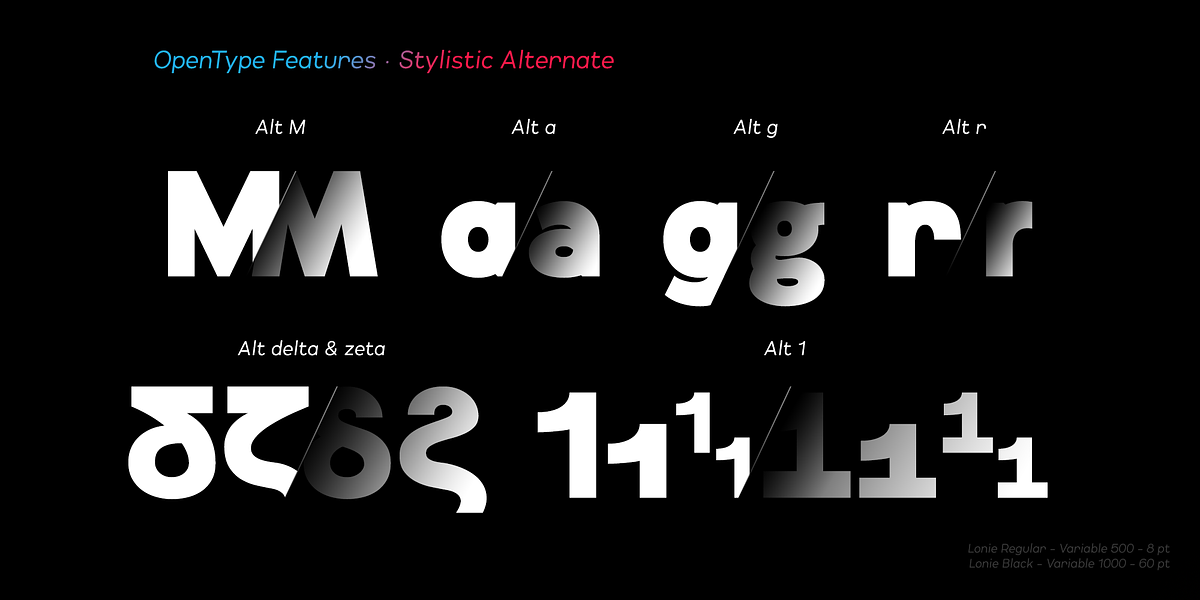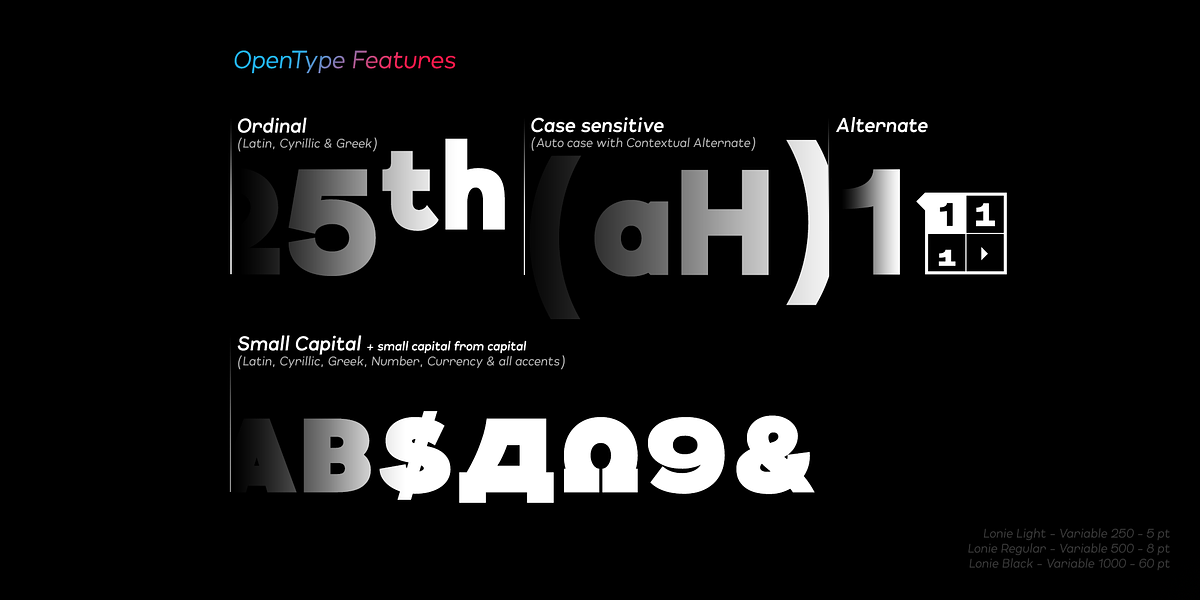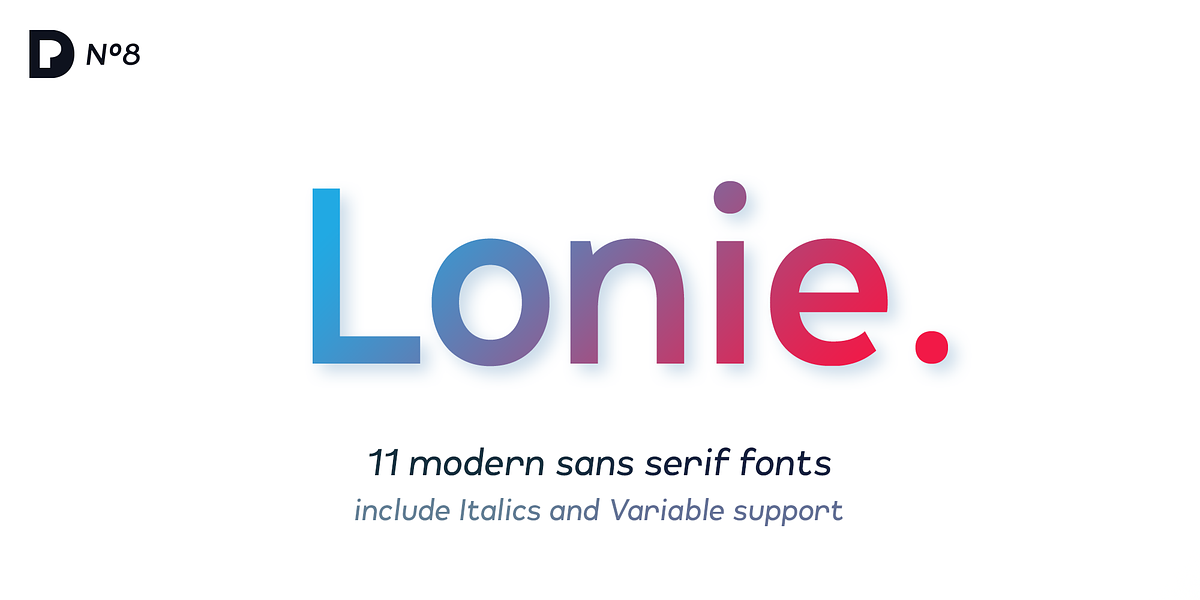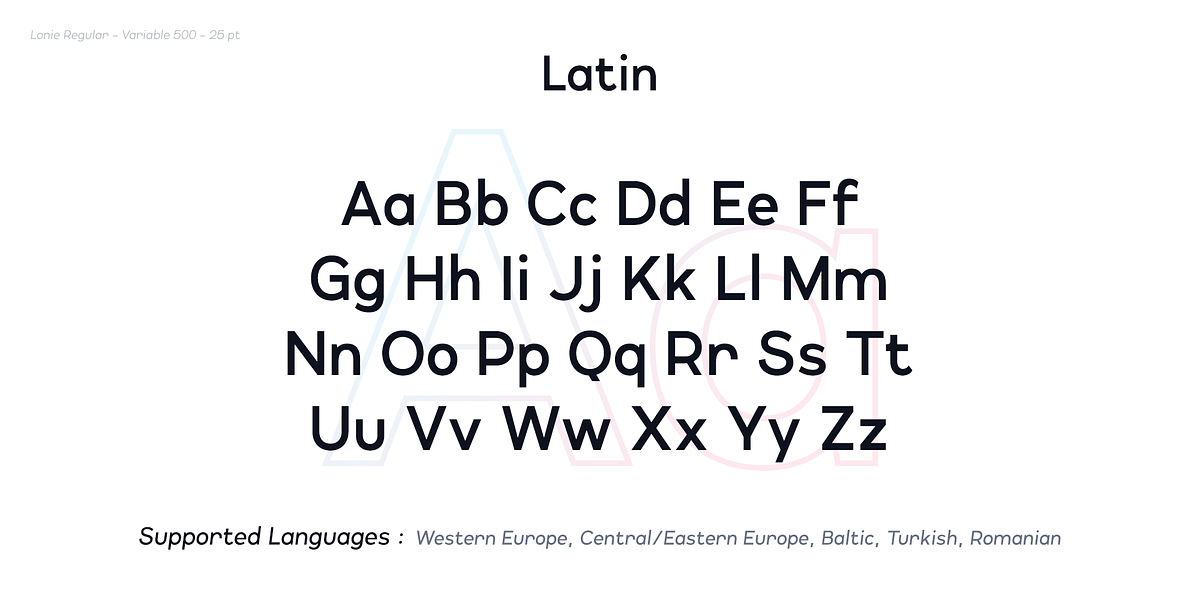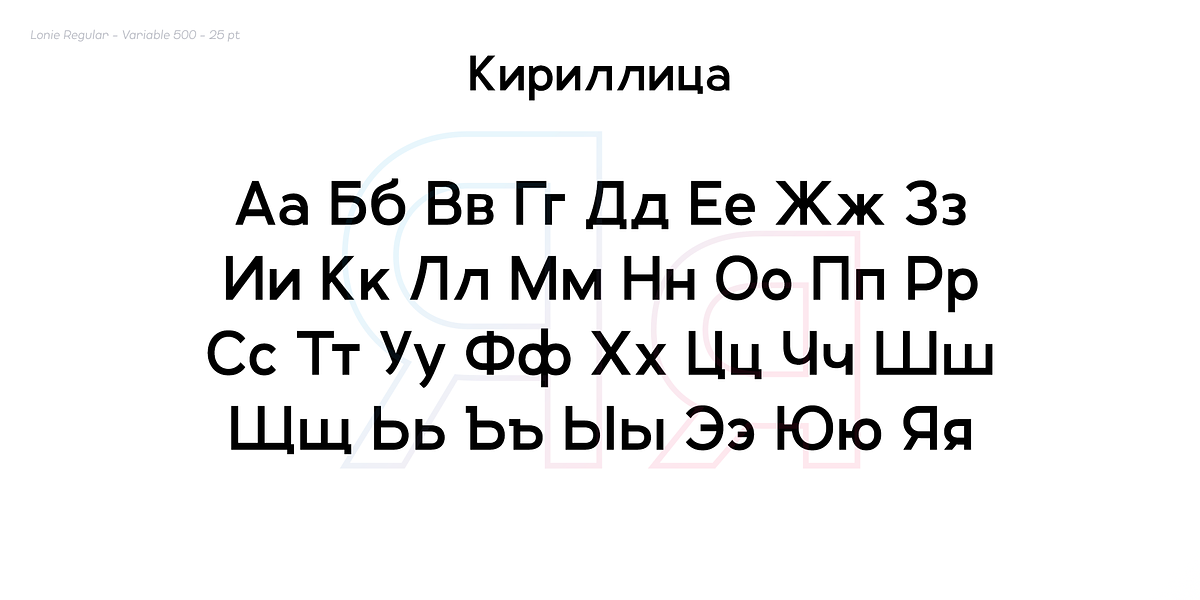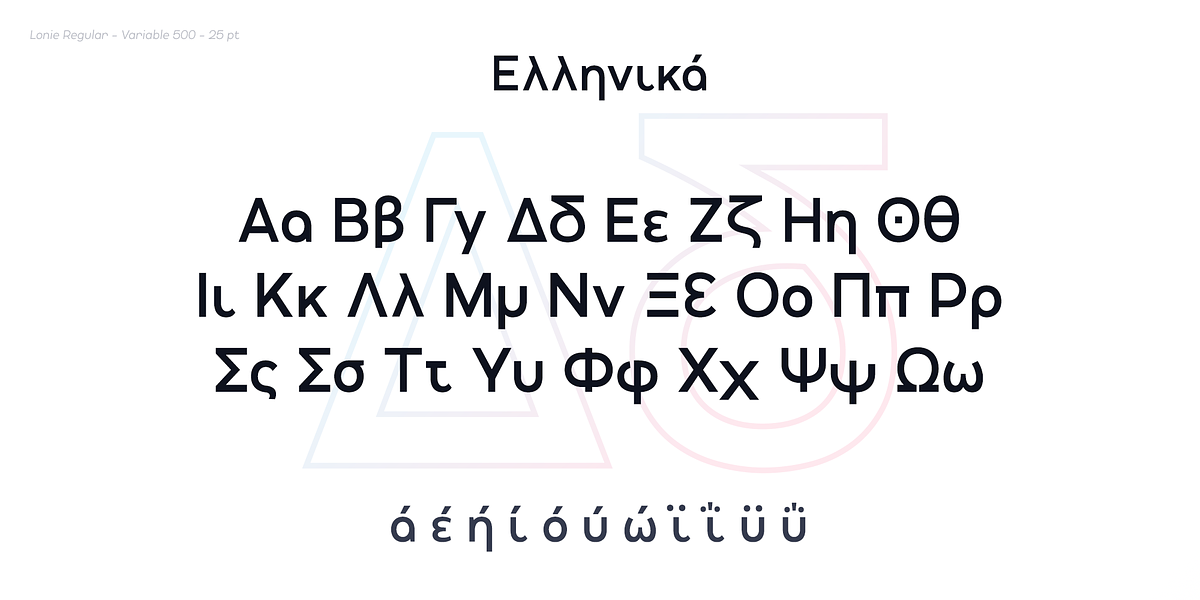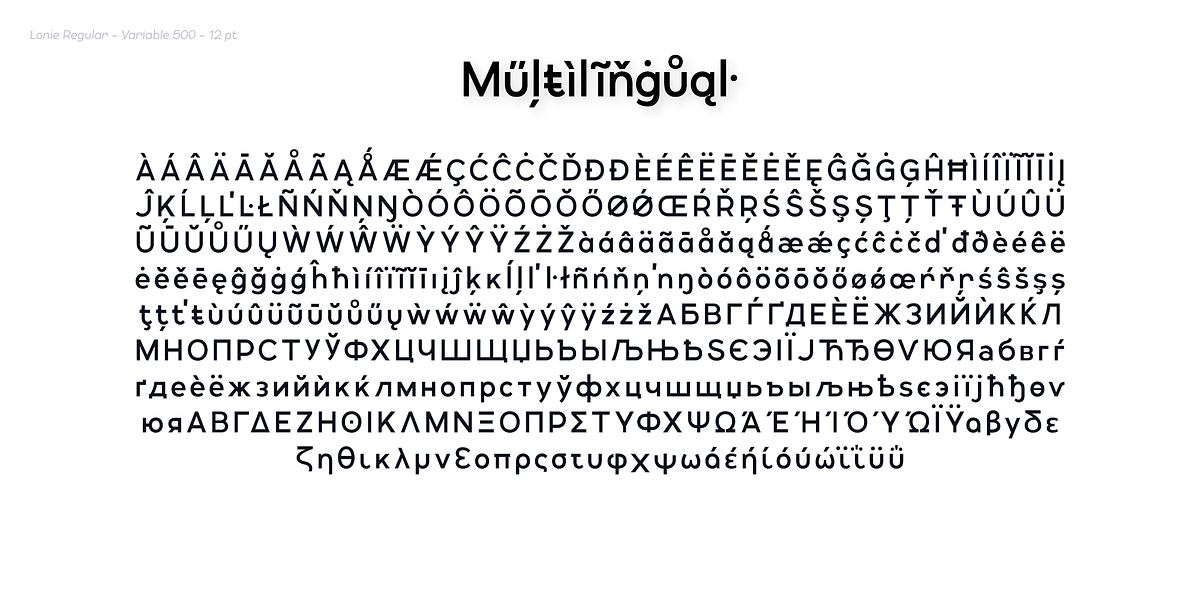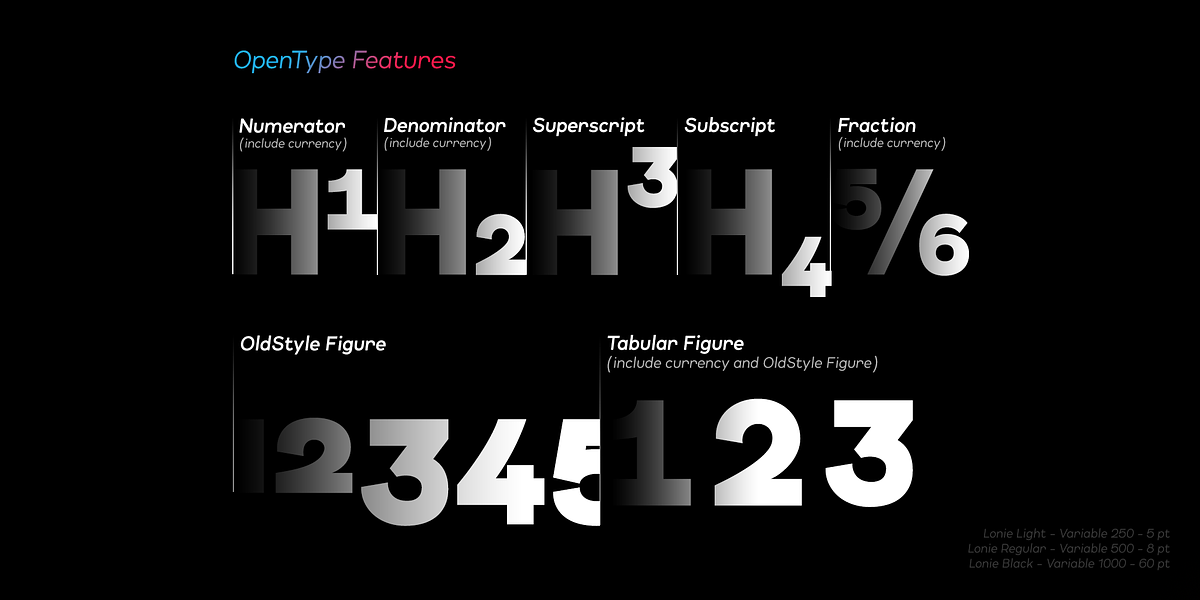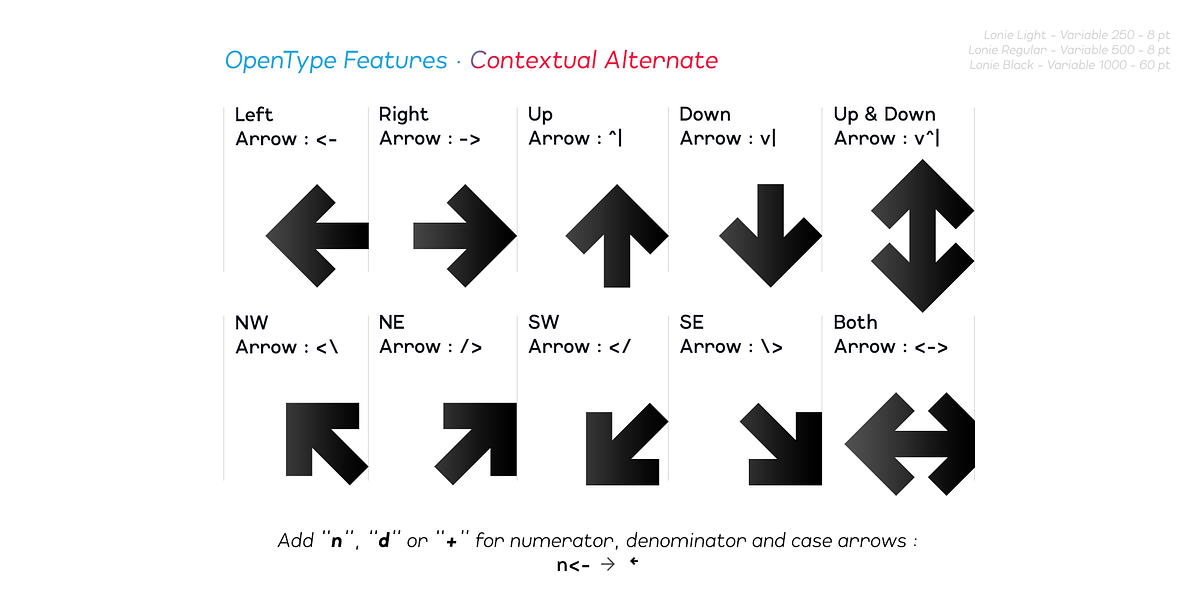
Lonie
Lonie is a versatile geometric sans-serif typeface offering a modern aesthetic. Its extensive character set includes Latin, Cyrillic, and Greek alphabets, making it suitable for multilingual projects. With five weights, italics, and a variable font version, Lonie provides exceptional typographic control. The inclusion of 15 OpenType features like fractions, small capitals, and stylistic alternates further enhances its versatility, allowing for refined and customized typography in various applications from branding and headlines to body text.